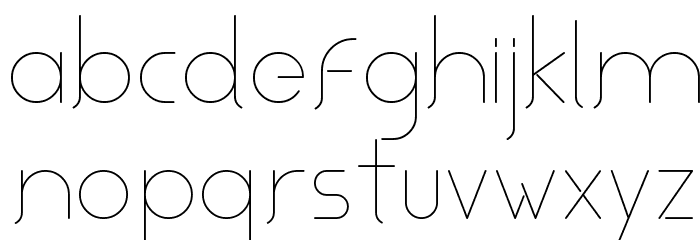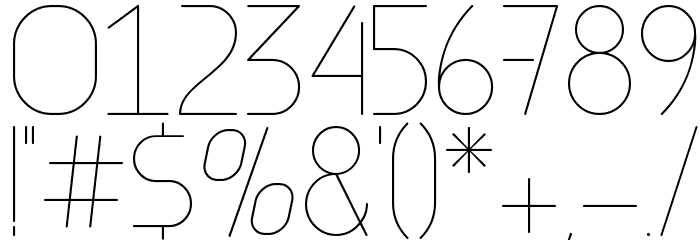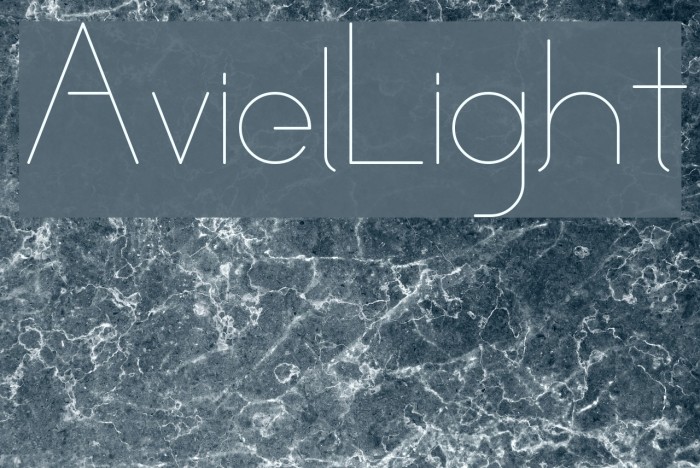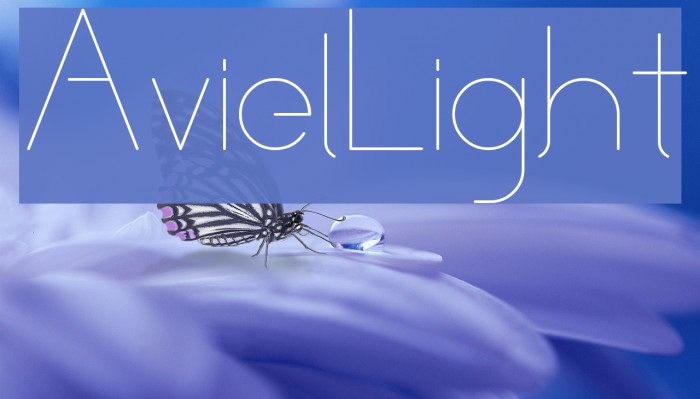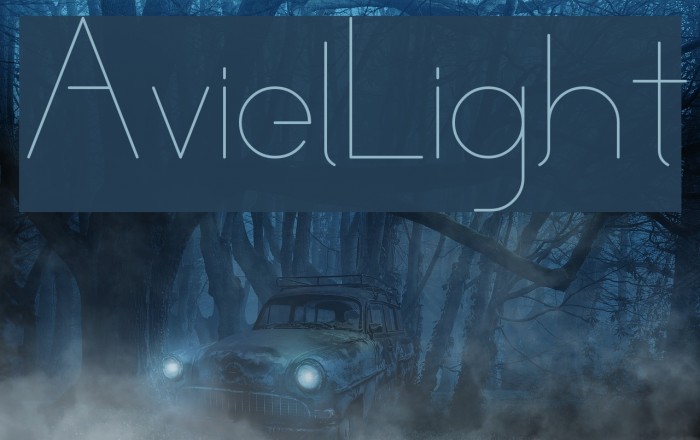
Aviel Light Font
This font features a sleek and modern design with thin, clean lines that give it an elegant and minimalist appearance. The characters are evenly spaced, providing a balanced and airy feel. The uppercase letters are tall and narrow, while the lowercase letters maintain a consistent height, contributing to a cohesive look. The numerals are distinct and align well with the overall style, making them easy to read. Special characters are designed with the same attention to detail, ensuring they blend seamlessly with the rest of the font. This font is ideal for projects that require a contemporary and sophisticated touch.
A sleek, modern font with thin lines and balanced spacing.
- Proposed Projects: Ideal for branding, editorial design, and digital interfaces that require a modern and elegant touch.